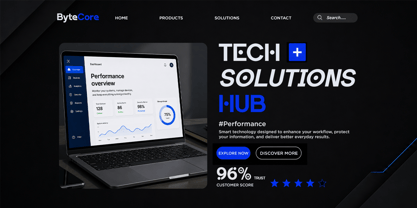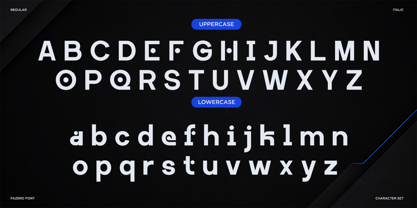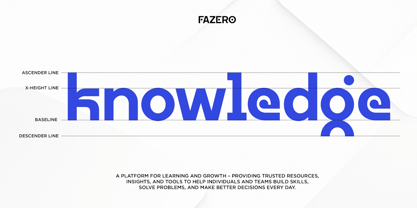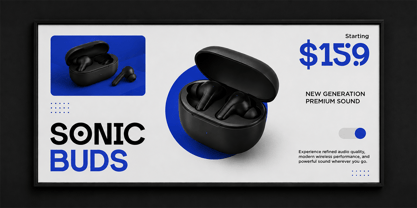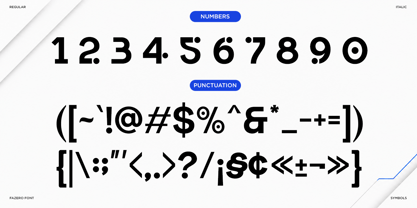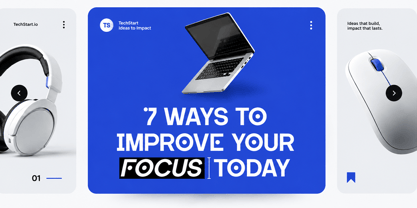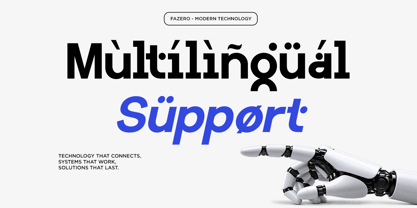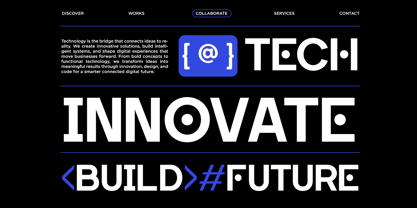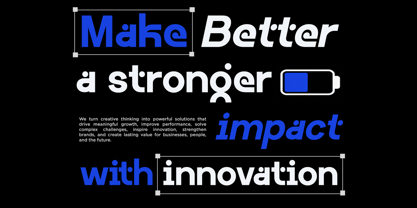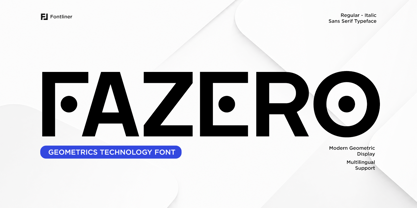
Fazero
Fazero is a futuristic tech sans serif font with a bold, geometric, and clean visual style. Designed for modern digital aesthetics, it combines sharp forms with a structured appearance that works especially well for technology, innovation, and contemporary branding projects.
Perfect for technology branding, AI and software projects, gaming, esports, websites, apps, UI/UX, posters, headlines, logos, editorial layouts, and corporate identities. Fazero includes uppercase and lowercase letters, numbers, punctuation, and multilingual support, making it a versatile choice for both display typography and professional branding.
• Regular and Italic
• Stylistic Alternates
• Uppercase and Lowercase
• Number, Symbol, and Punctuation
• Muiltilingual Support